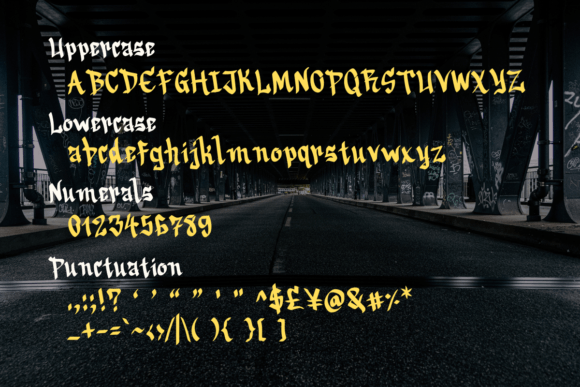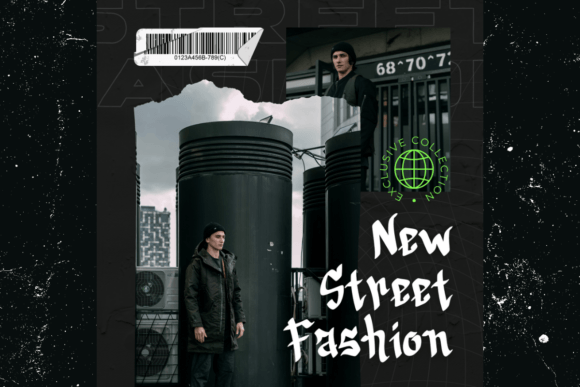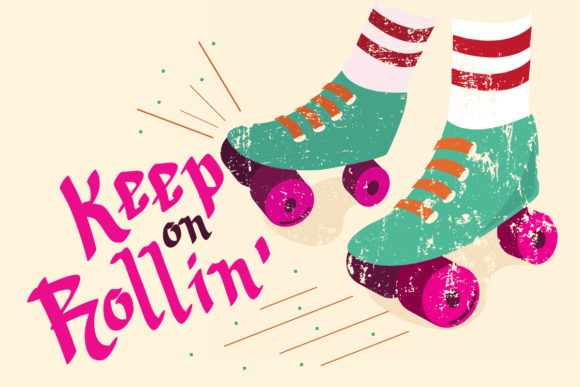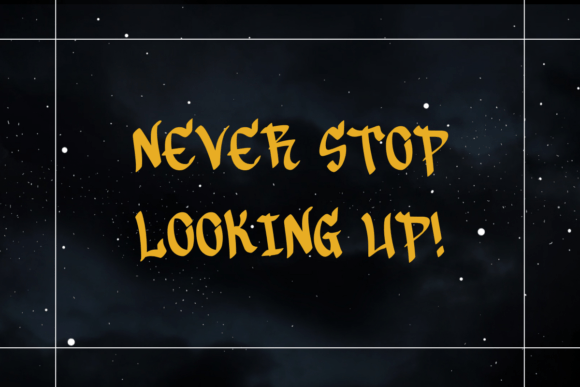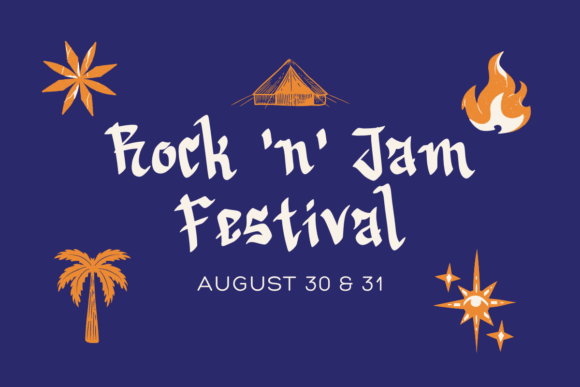
Introduction to Forster Street Font
Introducing Forster Street – the cool and edgy graffiti font that takes inspiration from the energy and style of street art to add a touch of urban flair to any project.
Featuring uppercase, lowercase, numerals, and punctuation, this font can be used to create a variety of designs that convey your message with style and coolness .